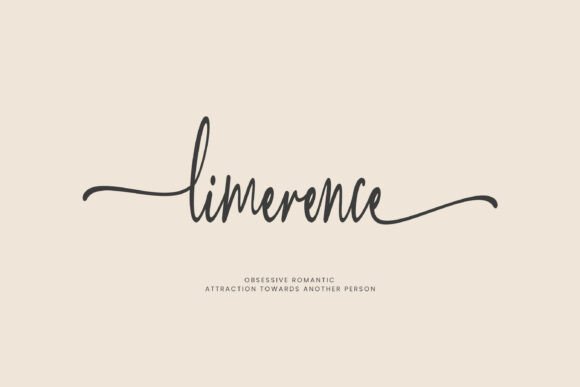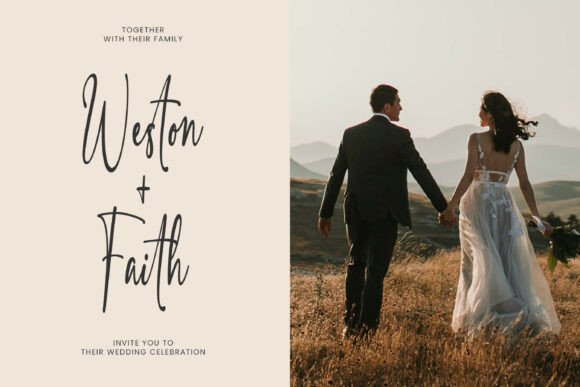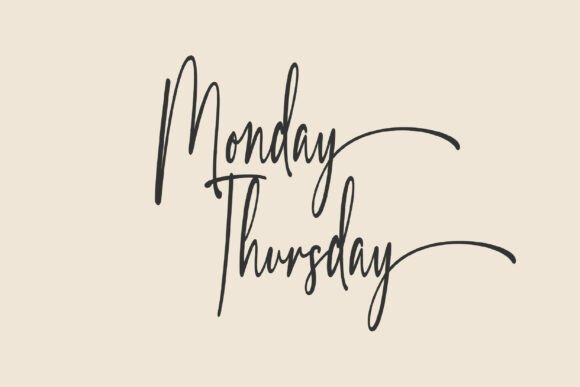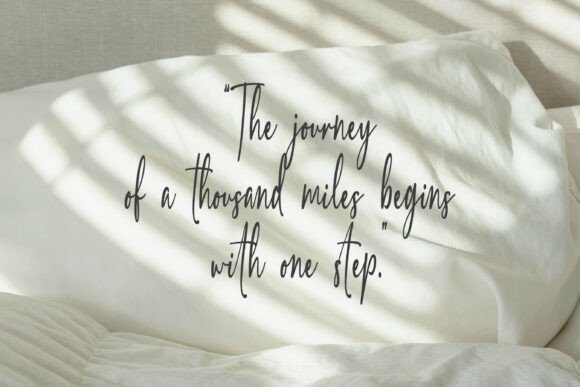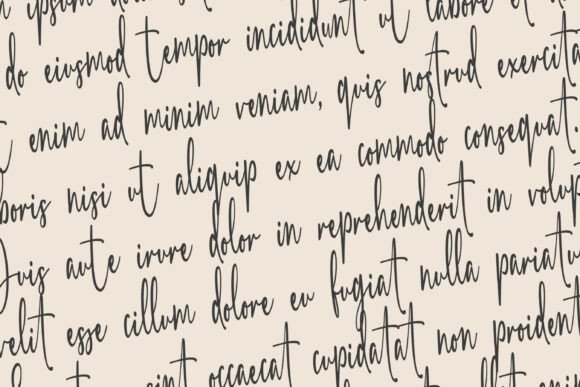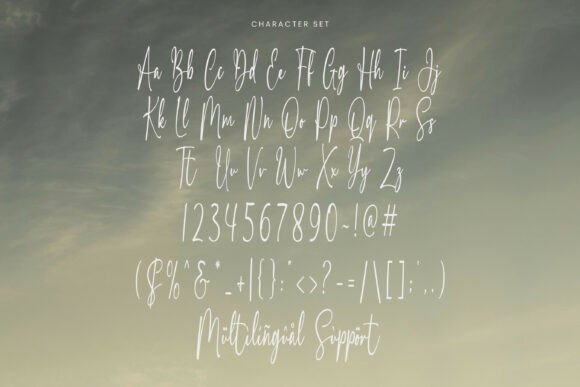
Introduction to Peter Carsten Font
Petercarsten is a modern handwritten script font that captures the effortless elegance of personal handwriting.
With its tall letterforms, smooth curves, and graceful flow, Petercarsten evokes a sense of warmth and sophistication Perfect for wedding invitations, branding, social media posts, and heartfelt messages, this font adds a touch of contemporary charm to every design.
Key Features of Peter Carsten Font
Why Choose Peter Carsten Font?
Peter Carsten Font offers exceptional quality and versatility, making it a valuable addition to your design toolkit. Whether you’re creating for personal projects or commercial use, Peter Carsten Font delivers professional results.